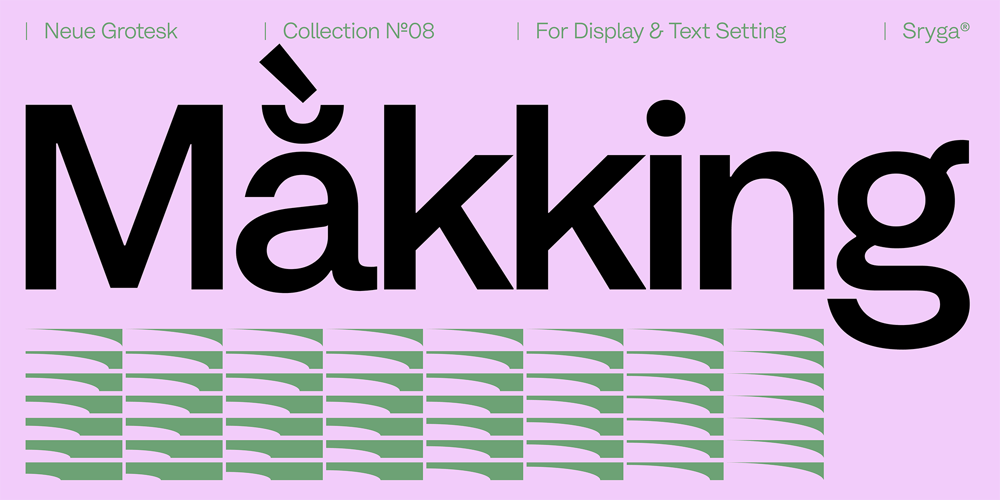
Makking Font Family was designed by Pande Sujana and published by Sryga. Makking contains 11 styles and family package options. Makking is the typeface that blends precision with personality! Whether you’re designing a bold headline or crafting tiny captions, Makking delivers impeccable readability with a dash of delightful unpredictability. Its sleek, clean lines make your text shine, while its quirky nuances add a touch of handcrafted charm that stands out at any size. Elevate your design game with Makking—where every letter tells a story!